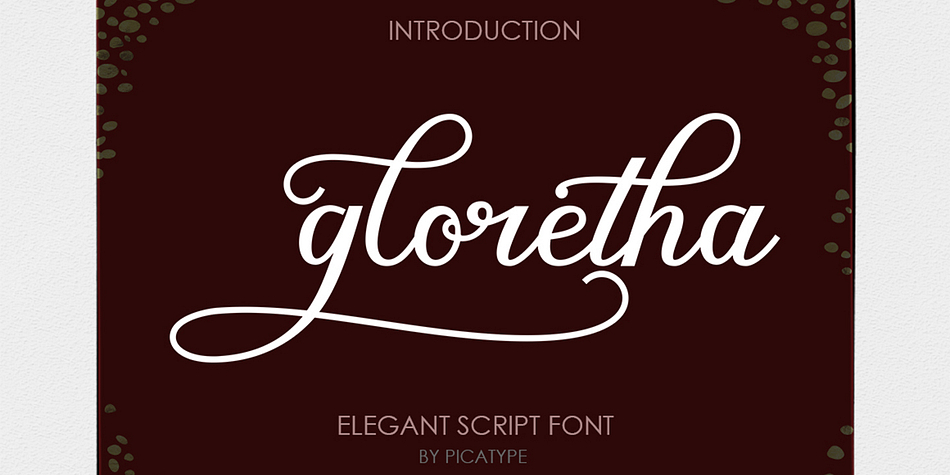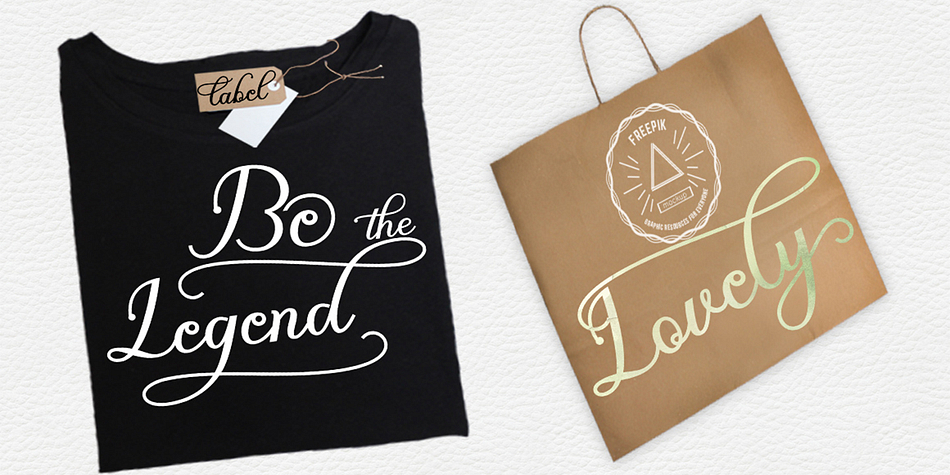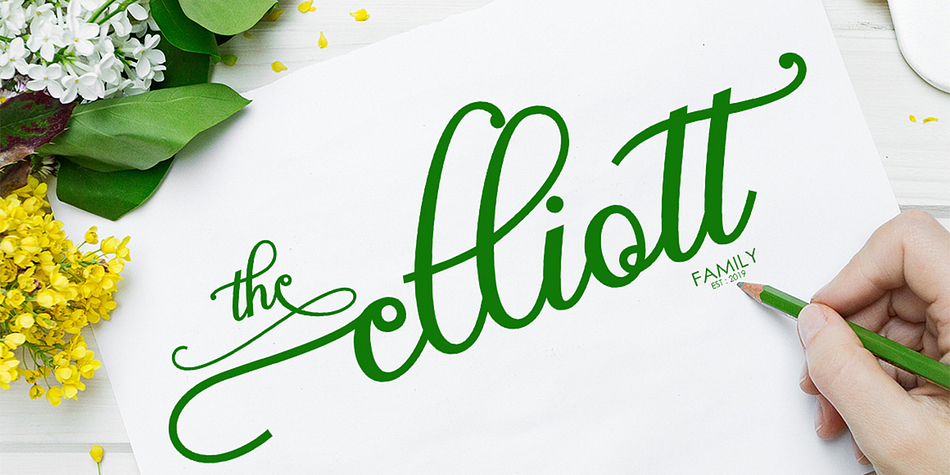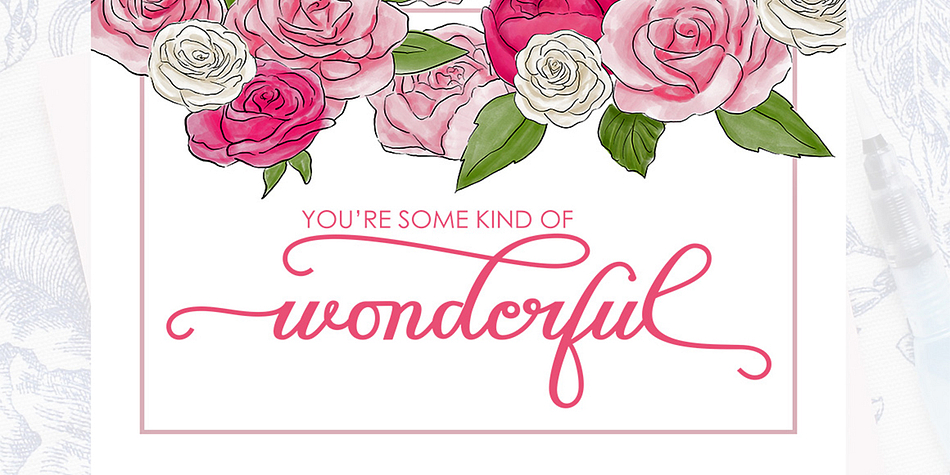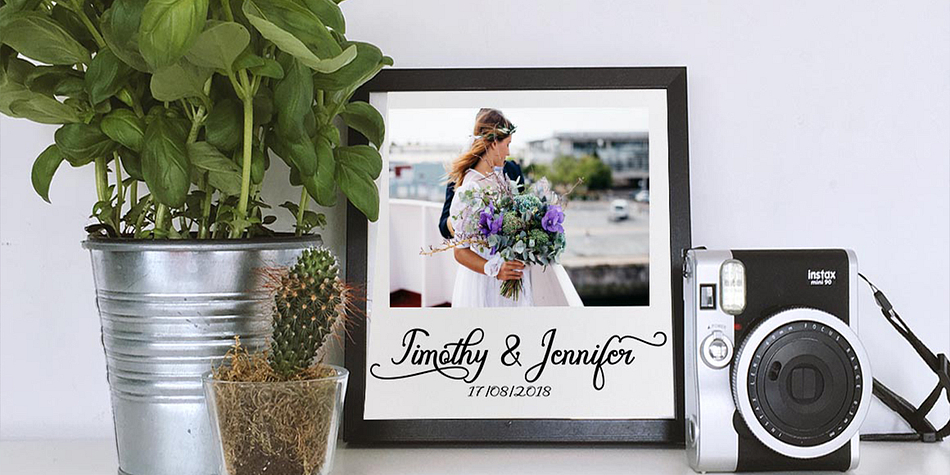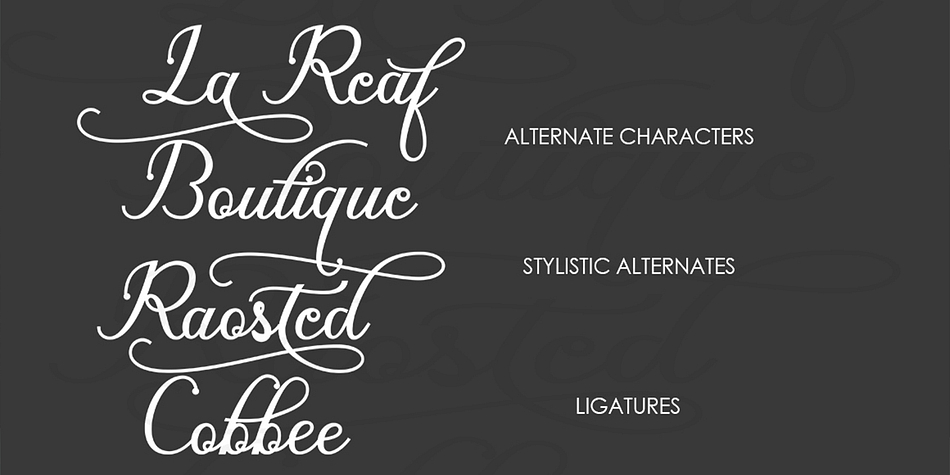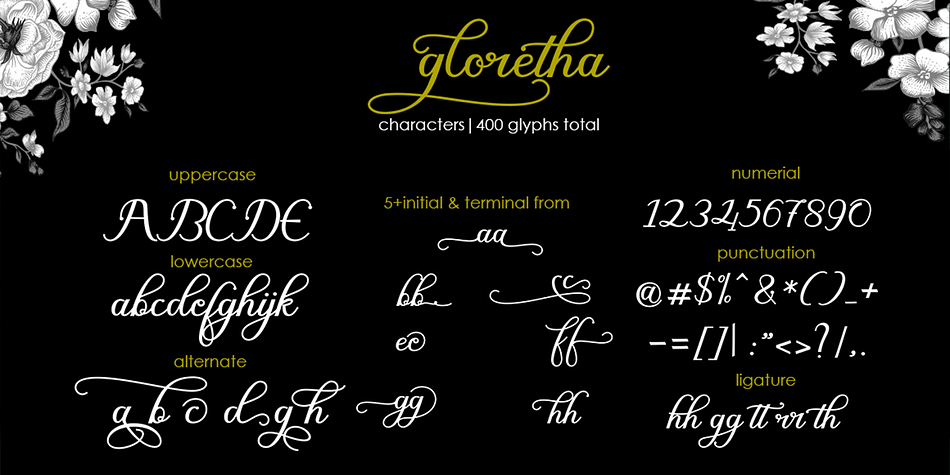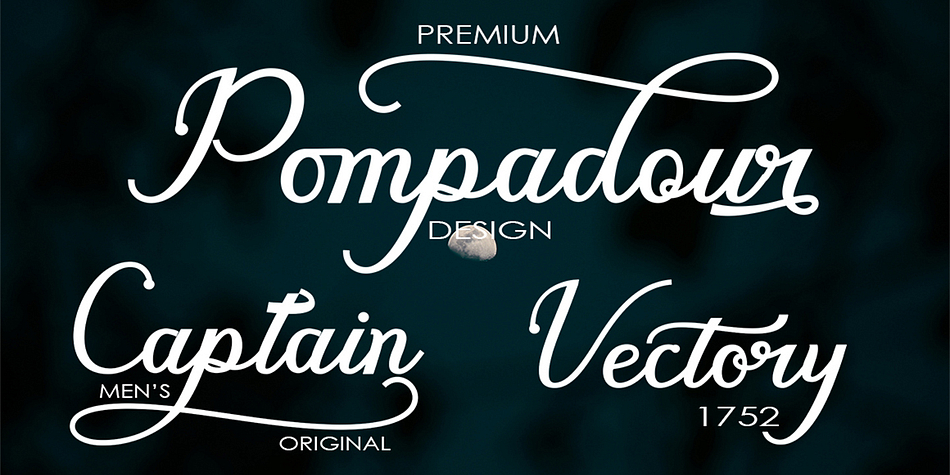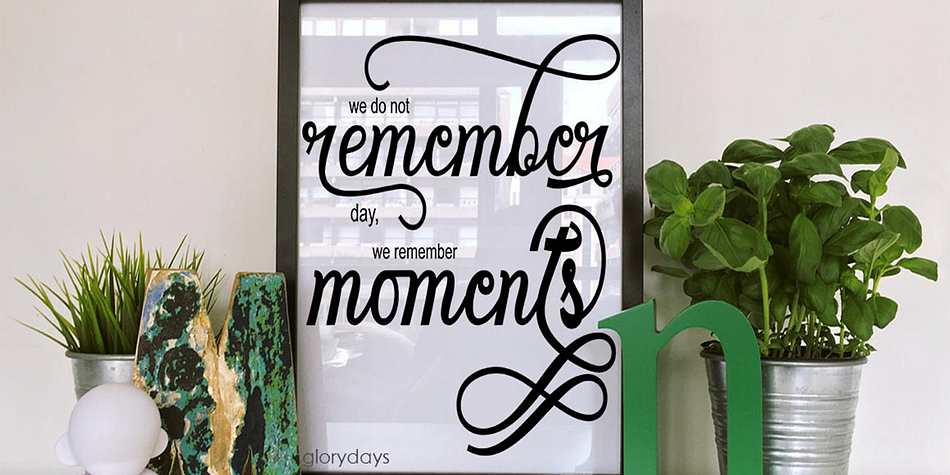
Gloretha Script is a modern calligraphy font family. This typeface has two styles and was published by Picatype Studio.
Gloretha Script is modern calligraphy design, including Regular and Bold Script. This font is casual and pretty with swashes.
Can used for various purposes. such as signature, logo, product packaging, wedding invitations, branding, headlines,
signage, labels, book covers, posters, quotes and more.
Gloretha Script features OpenType stylistic alternates, ligatures and International support for most Western Languages is included.